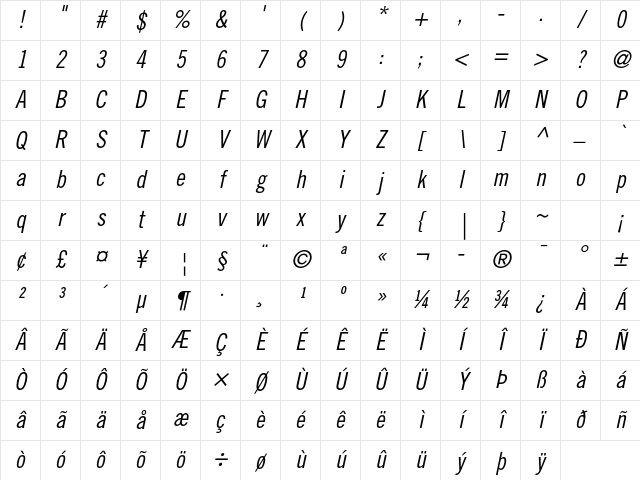
Complete Trade Gothic LT Std Condensed No. 18 Oblique glyph index. Displaying only characters natively supported by Trade Gothic LT Std Condensed No. 18 Oblique font.
Trade Gothic LT Std takes a clean, functional approach - its unadorned letterforms prioritise legibility and work reliably across screen and print environments. The slanted form adds forward momentum and visual energy. Its slender proportions lend an understated elegance to any composition. Its narrow stance lets it pack a punch even in space-constrained designs.
Font Pairing: Pair Trade Gothic LT Std with a medium or bold serif for headlines - the weight contrast creates an elegant, high-end feel.
Pro Tip: Use Trade Gothic LT Std tightly set in headlines and banners - its condensed proportions make it ideal for maximum impact in minimum horizontal space.